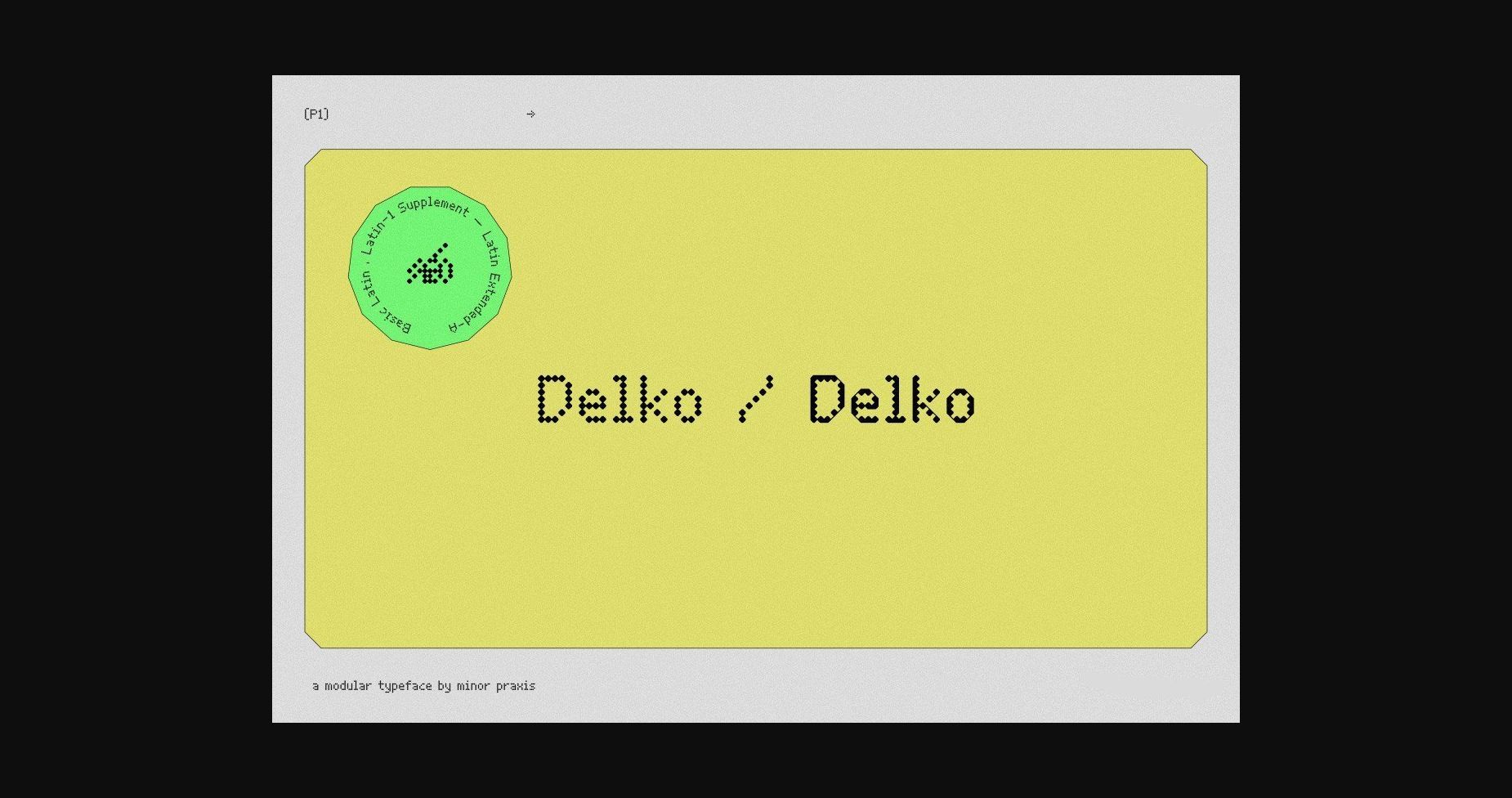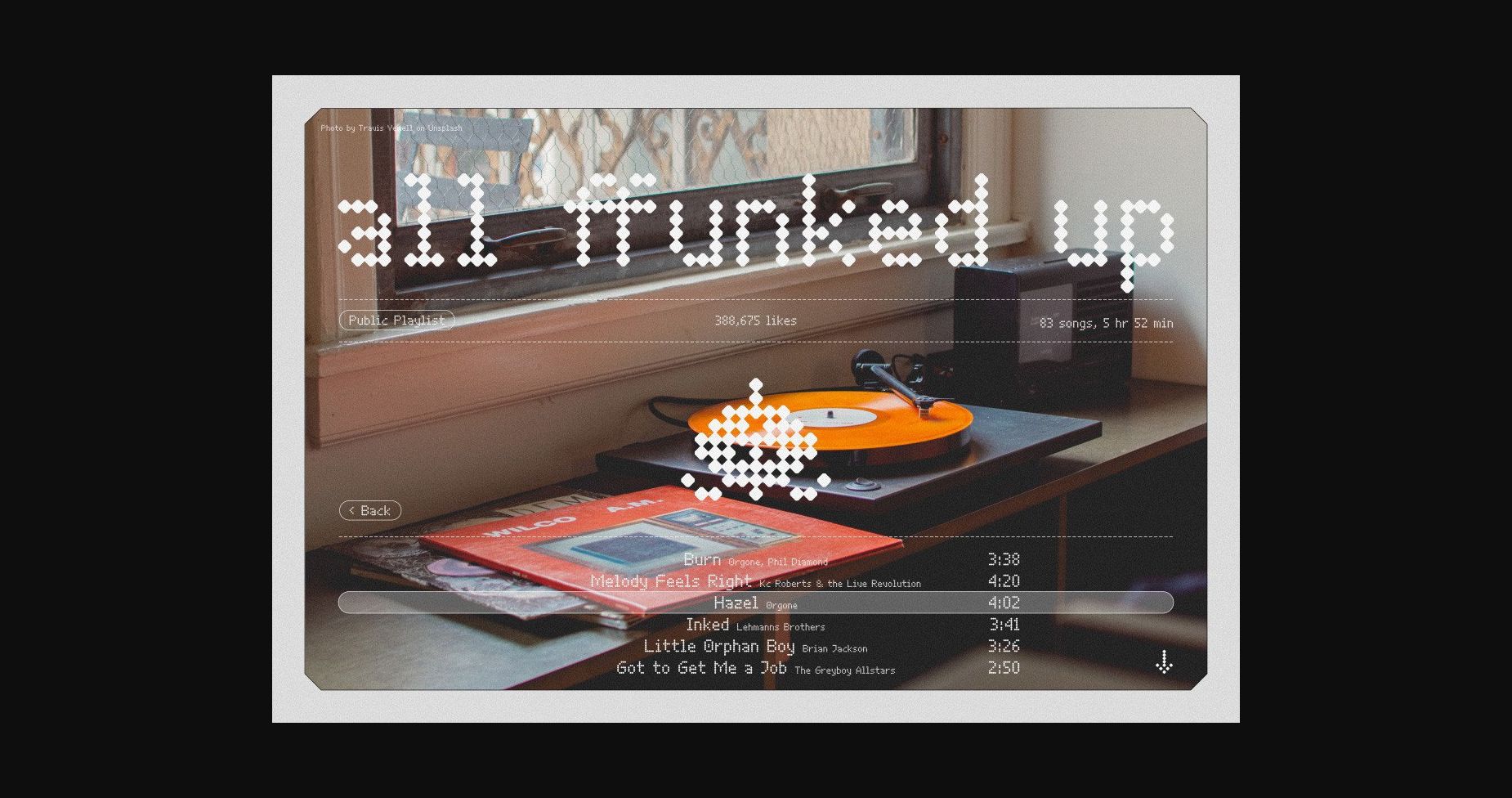
About Delko Font
Delko is a cool sans serif font, inspired by a scrolling banner led-lamp display and monospace font like OCR-A/B. A modular typeface that comes from an arranged octagonal shape module, with 45 degrees sides slope which can give it a casual digital look. Designed for headlines, posters, and medium-size body copy.